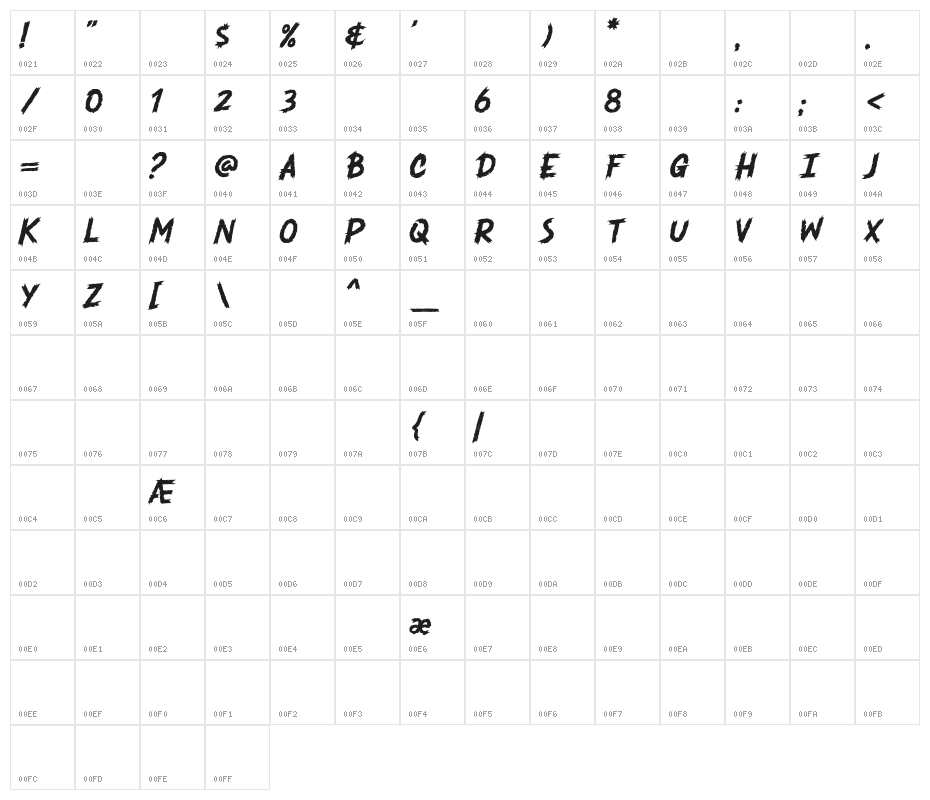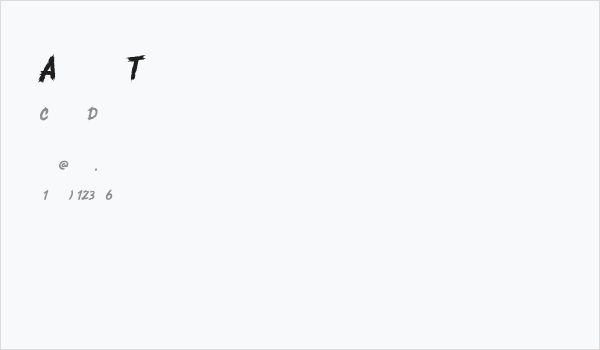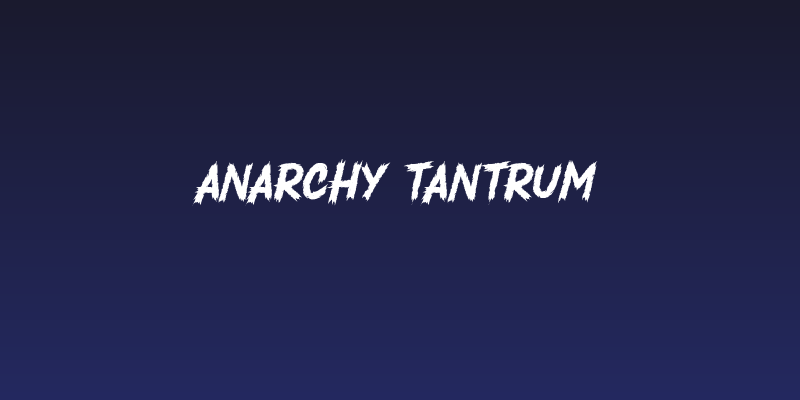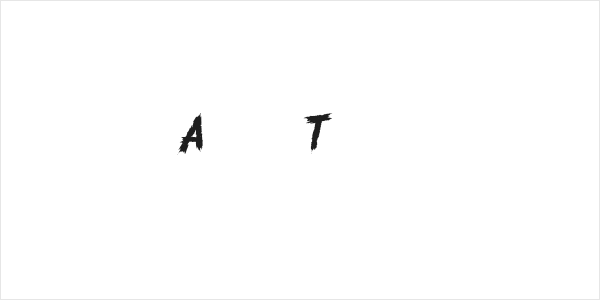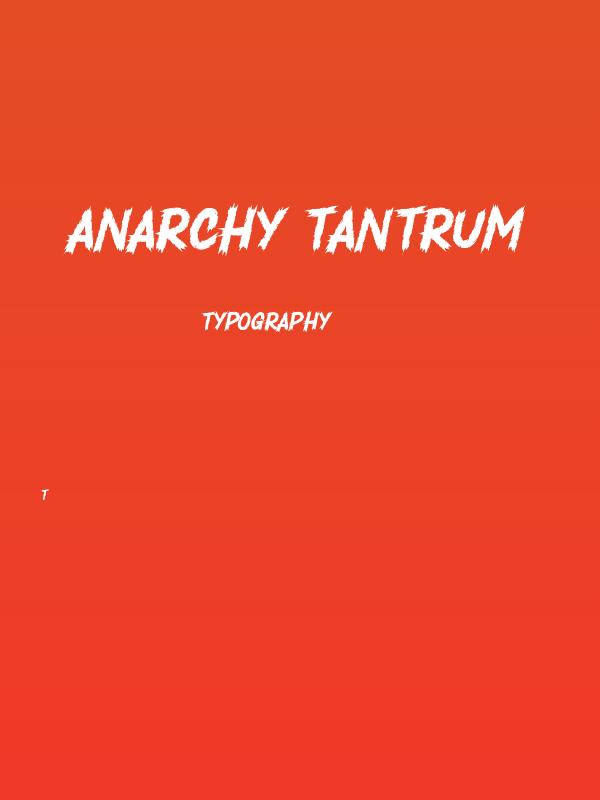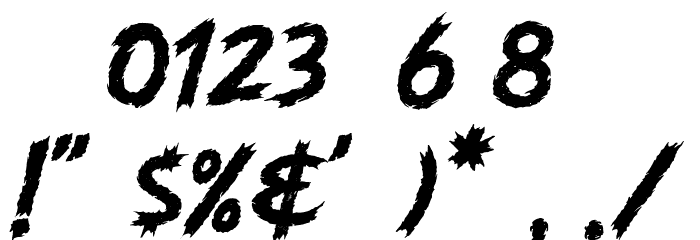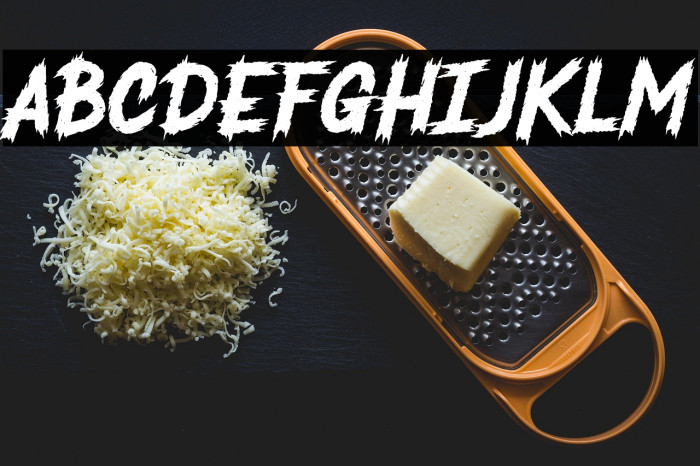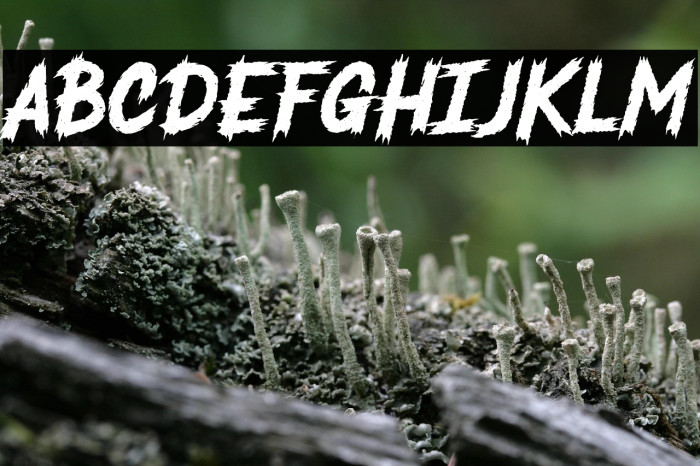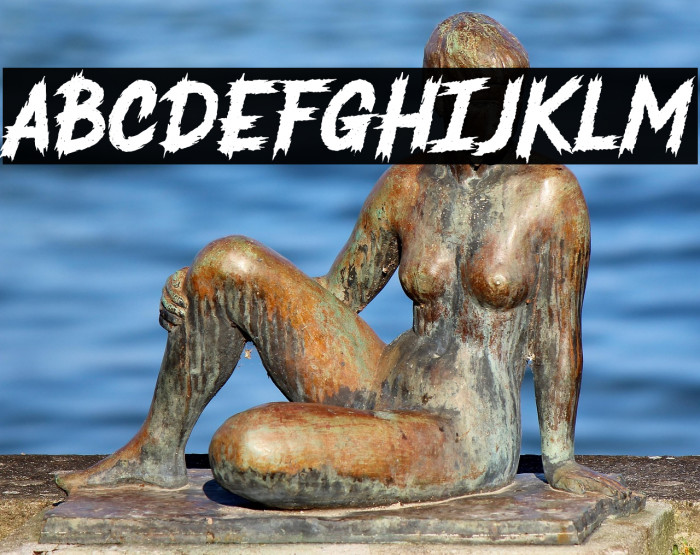
Anarchy Tantrum Font
Anarchy Tantrum Description
This font exudes a rebellious and energetic vibe, characterized by its bold, jagged strokes and irregular edges. The letters appear as if they were hastily painted with a brush, giving them a raw and dynamic appearance. The uppercase letters are particularly striking, with each character maintaining a consistent height but varying in width, adding to the chaotic feel. The numbers and special characters follow the same aesthetic, ensuring a cohesive look across all elements. This font is perfect for projects that require a sense of urgency or a punk-inspired theme.
| Proposed Projects | Ideal for music album covers, event posters, graffiti art, and edgy branding projects. |